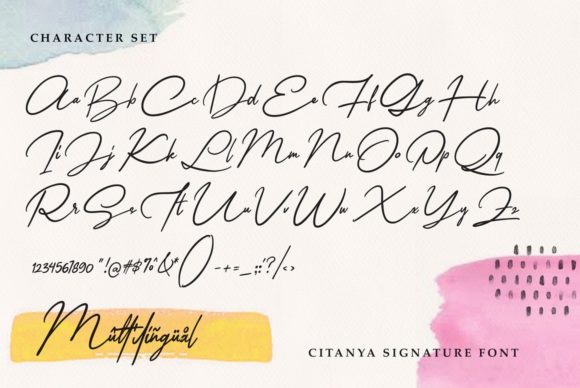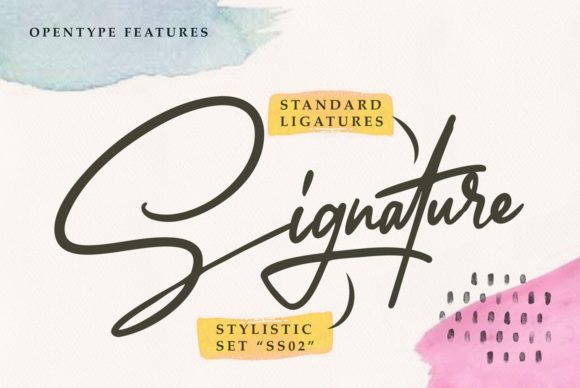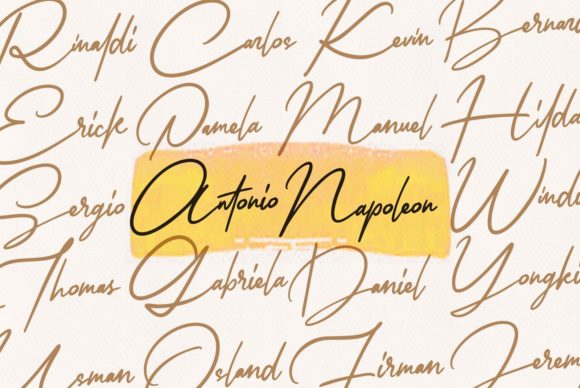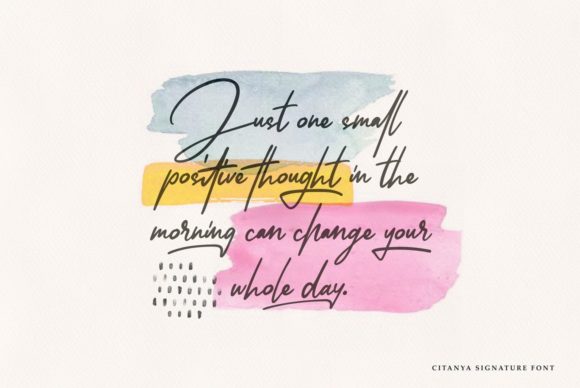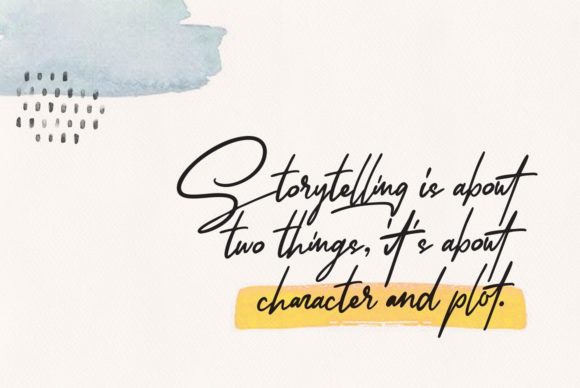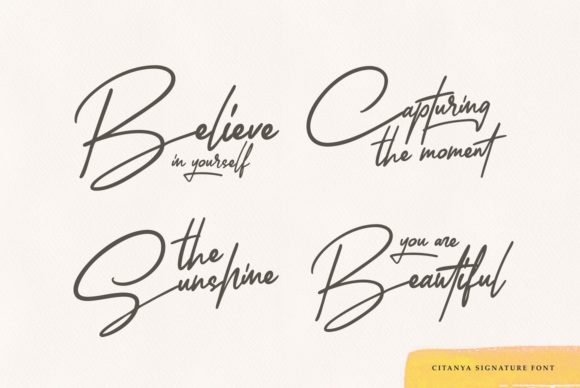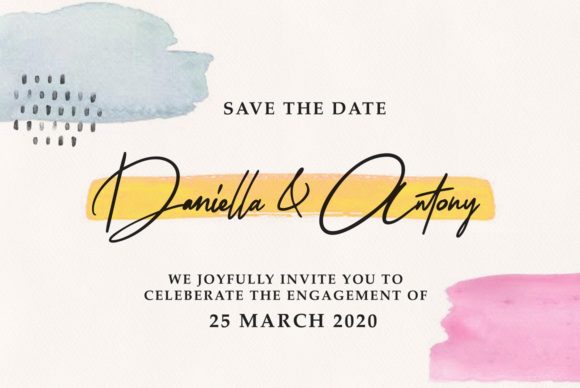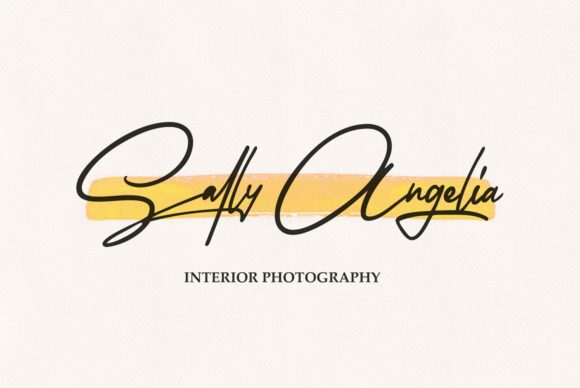
Citanya Font
About Citanya Font
Citanya is a flowing yet casual handwritten font. It looks perfect on branding, social media headers, product packaging, wedding invites and much more.